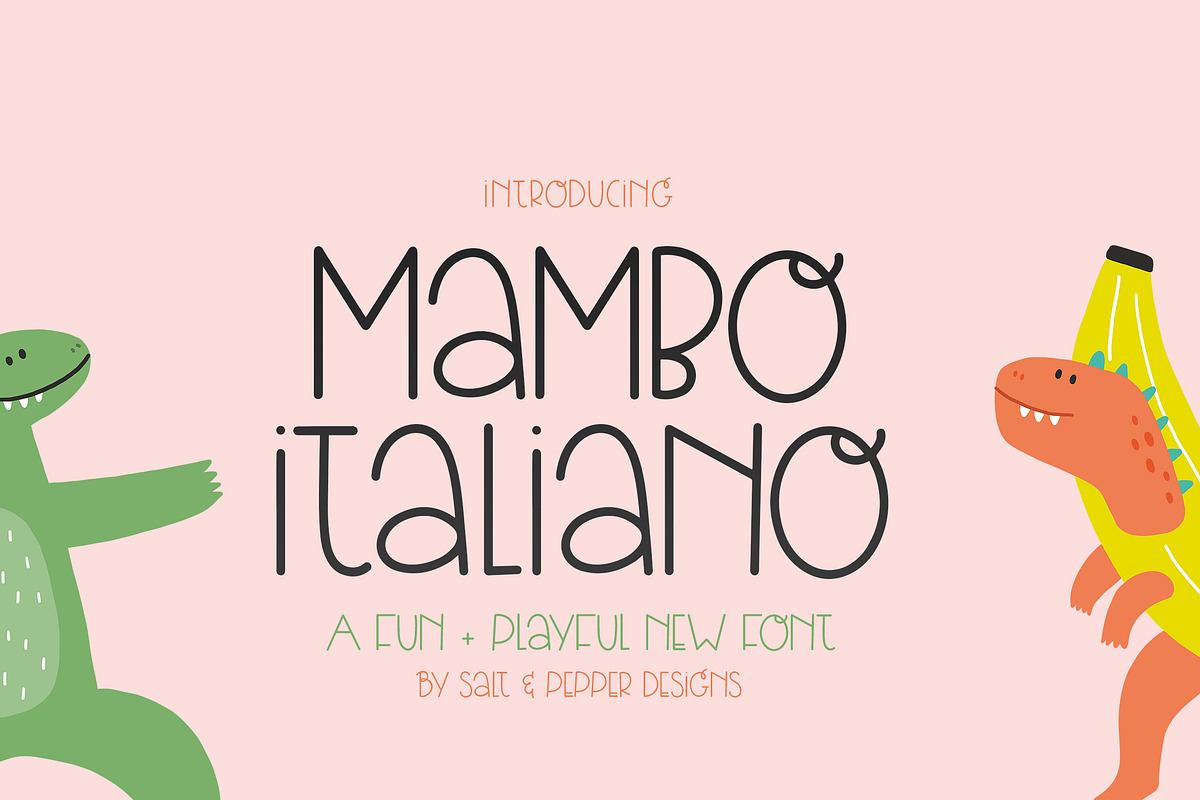
Mambo Italiano Font Free Download
The Mambo Italiano Font Free Download is a lively and vibrant typeface that captures the fun, energetic spirit of Italian culture. With its playful curves and bold letterforms, this font is perfect for creating lively, eye-catching designs such as restaurant logos, event posters, branding, and more. Whether you’re working on a food-related project, an Italian-themed event, or need a fun, distinctive font for your branding, Mambo Italiano brings a unique and engaging flair.
Mambo Italiano Font Free Download is ideal for designers looking for a fun, creative font that stands out with a touch of charm and playfulness. Perfect for projects that require a vibrant, Mediterranean-inspired style, this font will make your designs pop. Download this charming font today and bring a little Italian flair to your work!